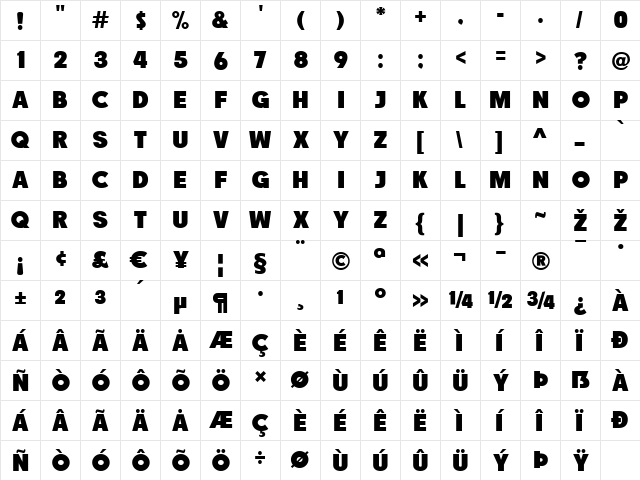
RACE1 Brannt NCV Regular Font Preview
RACE1 Brannt NCV Regular
RACE1 Brannt NCV Regular Font Details
Design Context for RACE1 Brannt NCV Typeface
RACE1 Brannt NCV takes a measured approach to typography — its balanced proportions and neutral character make it a reliable workhorse for both digital and print work.